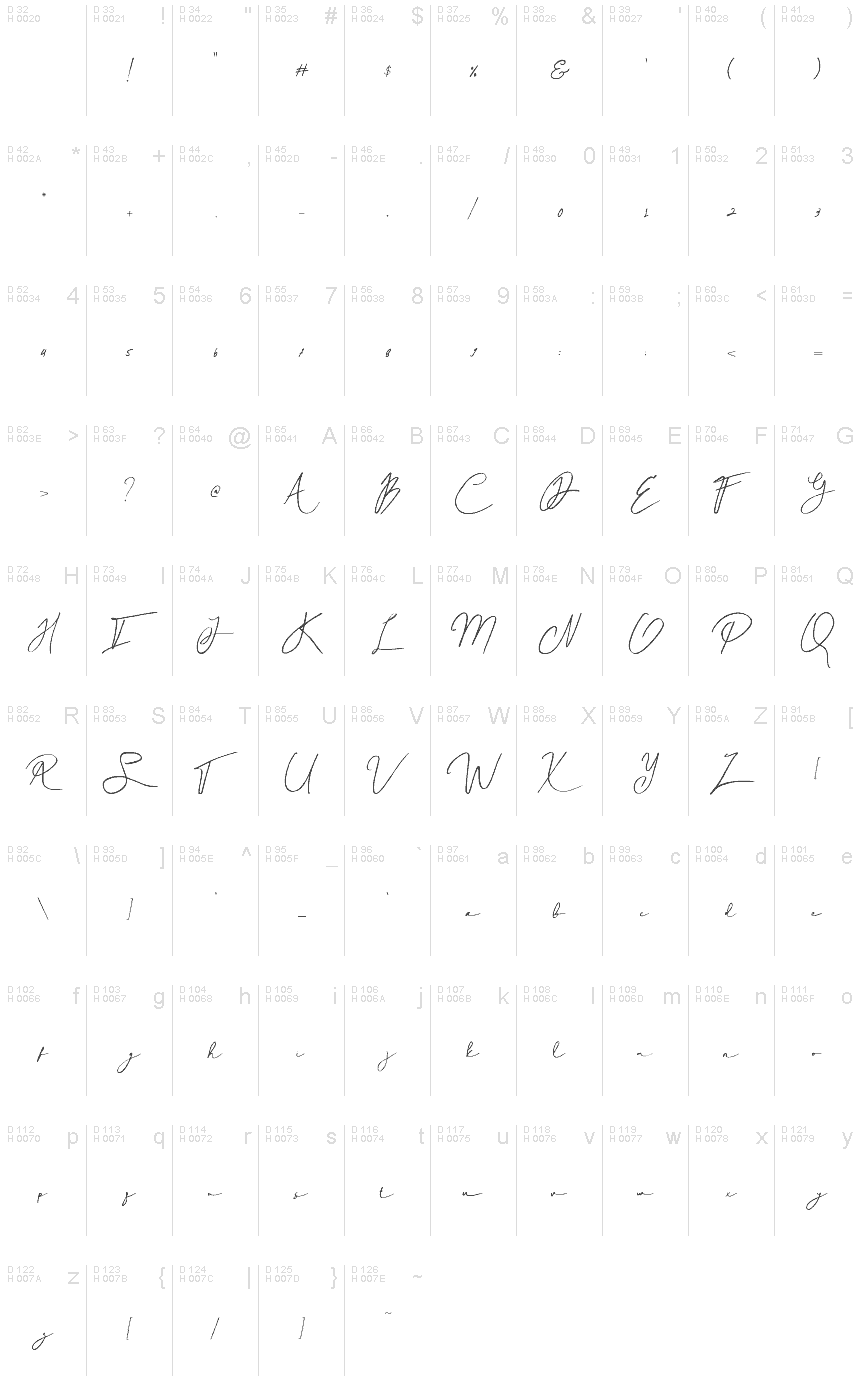
Jelen Black Demo
Jelen Black font by madeDeduk captures the natural elegance of a handwritten style. Its flowing, sophisticated feel blends modern aesthetics with a casual script vibe. The font's light weight enhances its delicate appearance, making it perfect for adding an elegant touch to any design.
This free handwritten font is suitable for branding, personal invitations, stationery, flyer designs, and packaging applications. Use it for headers and subheadings in blog posts or articles and for product labels as well. Jelen Black can also be used in cards such as weddings/parties invitations.